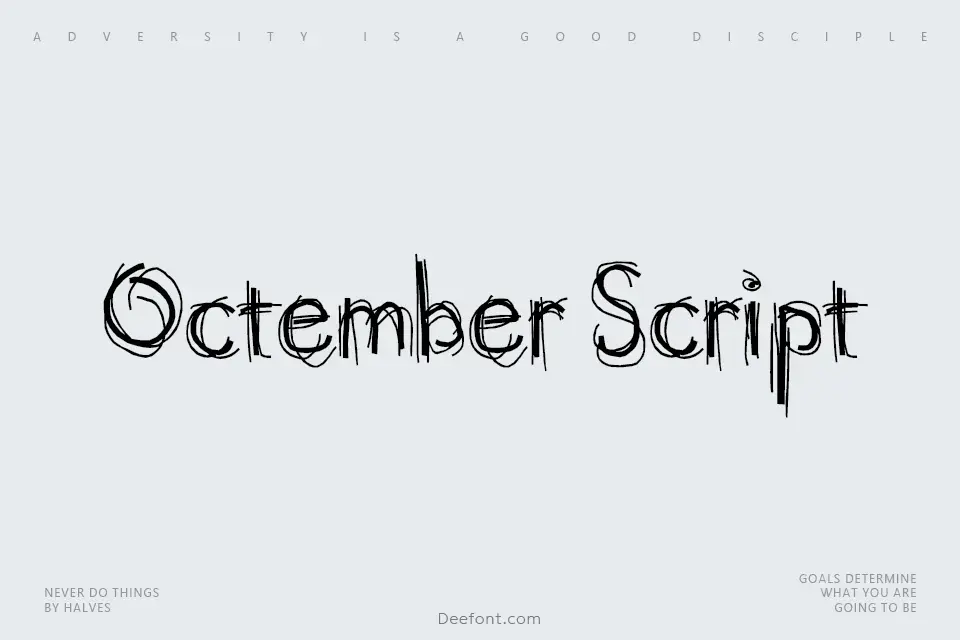
Octember Script Font
Octember Script is a captivating decorative display font that captures the playful yet mysterious spirit of the autumn season. With its distinctive flowing letterforms and trashy, elaborate character styling, this typeface excels in creating eye-catching headlines and dramatic titles. The font features 179 unique glyphs with intricate design details perfect for Halloween posters, festive invitations, seasonal event designs, and spooky-themed merchandise. Its expressive brushwork and ornamental qualities make it ideal for creating atmospheric graphics for horror movies, Halloween parties, autumn celebrations, and creative project covers. The font’s elaborate swashes and decorative elements add personality and charm to branding, packaging, and poster designs that demand visual impact and festive character.